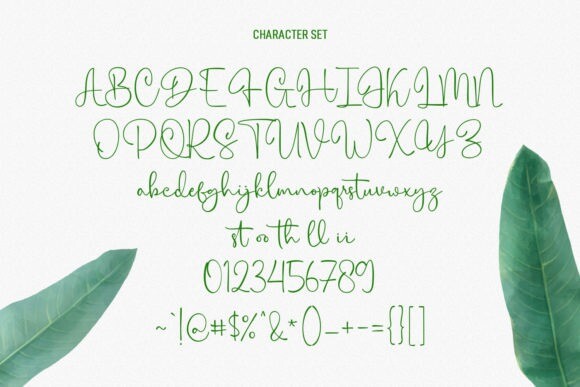
Citrus Cycle Font
Designer: Maulana Creative
Citrus Cycle Font is a magical script font carefully created with a touch of elegance. Whether you’re looking for fonts for Instagram or calligraphy scripts for DIY projects, this font will turn any creative idea into a true piece of art!